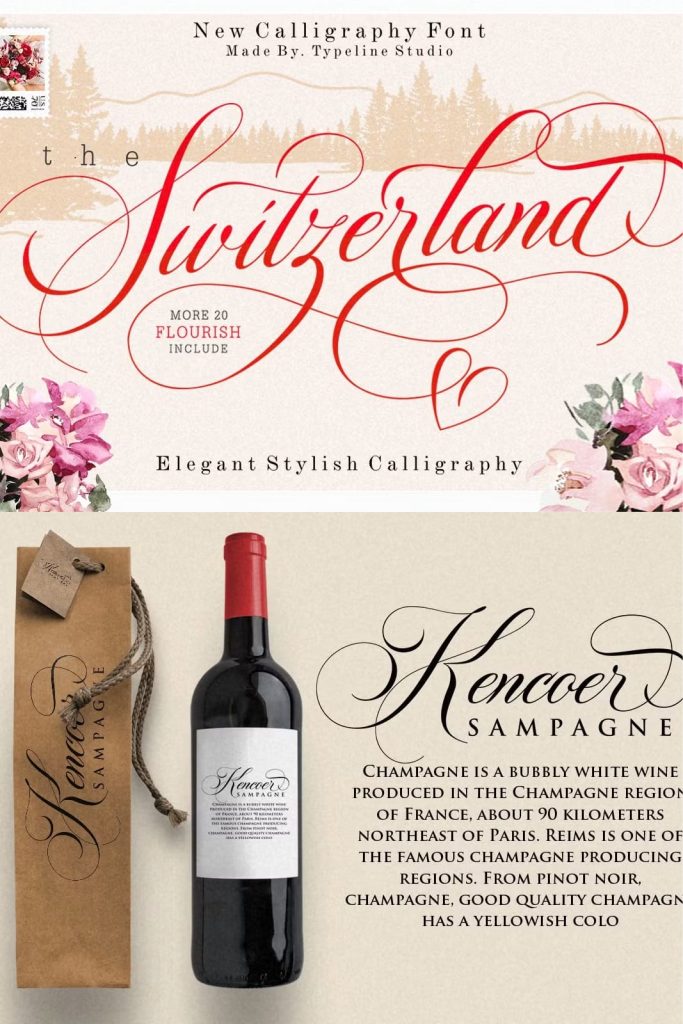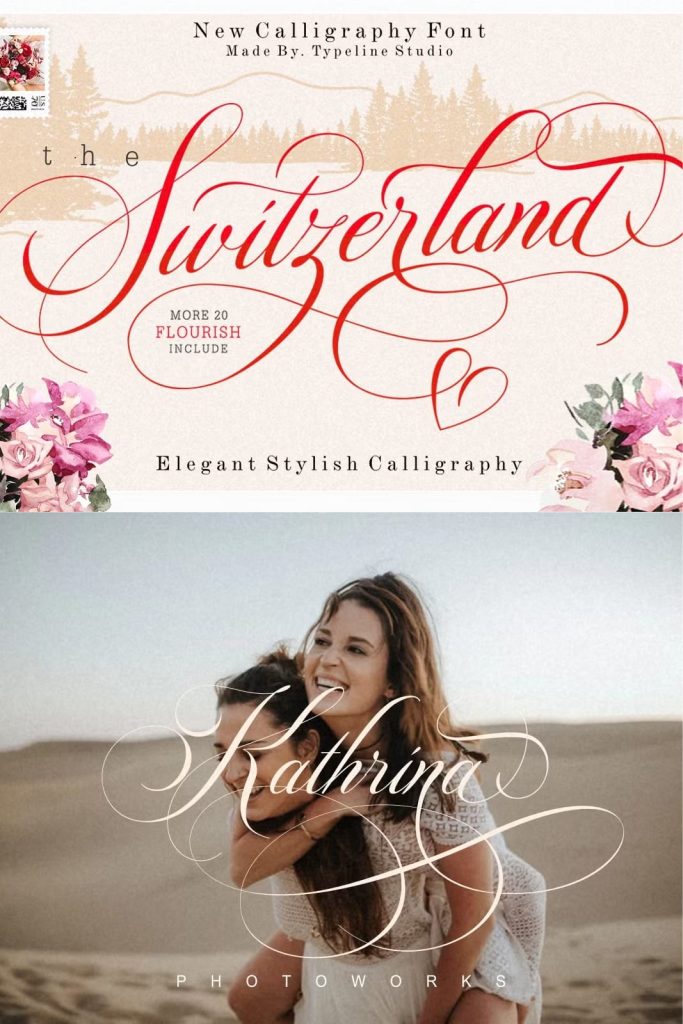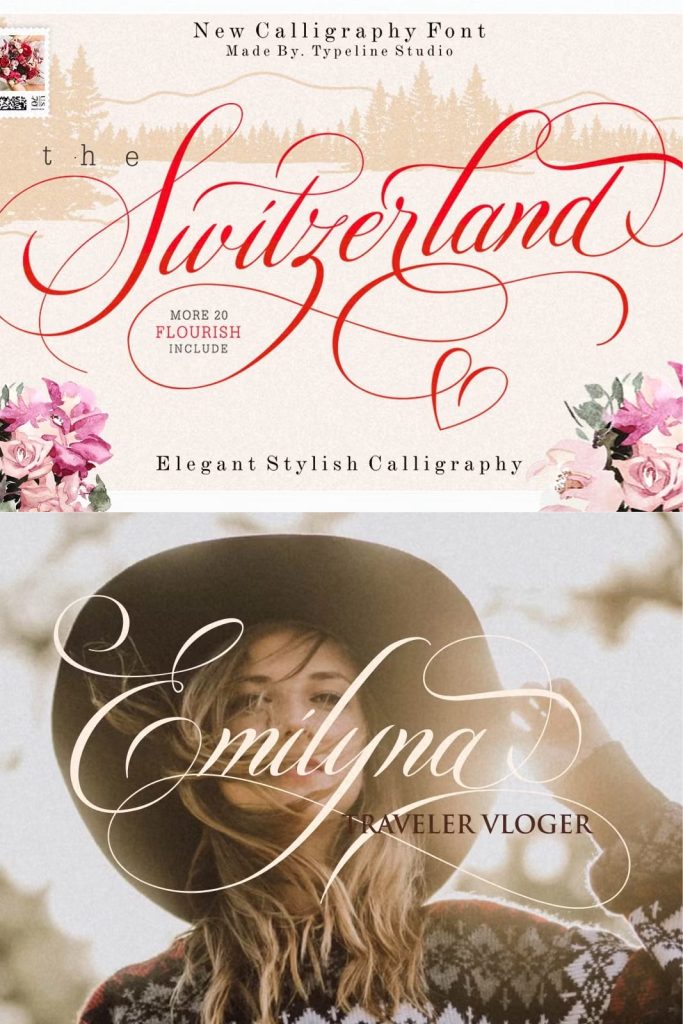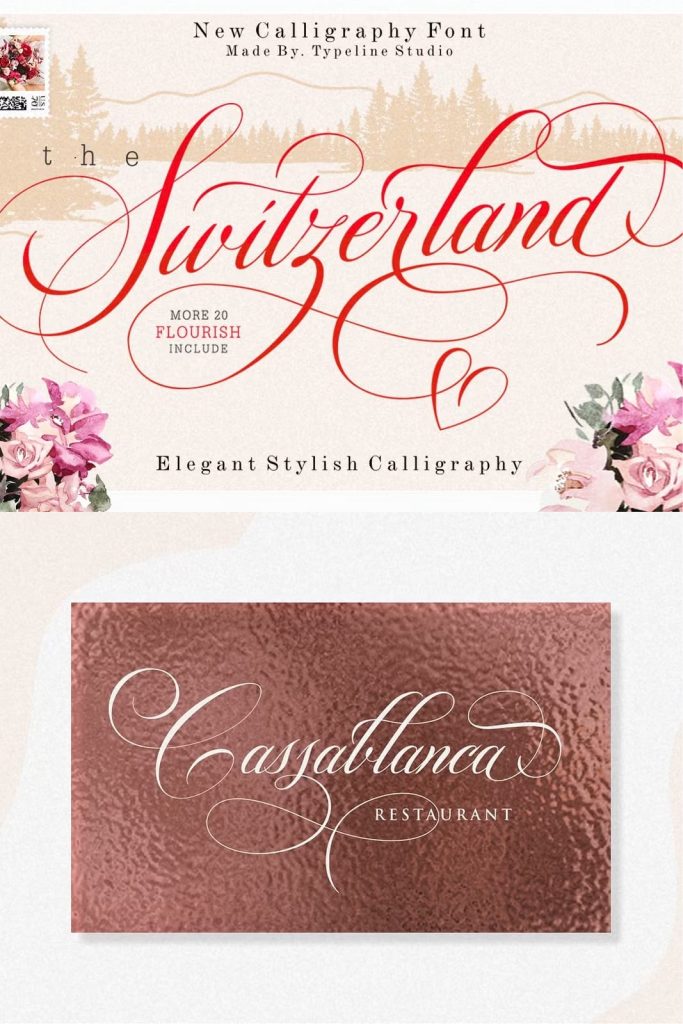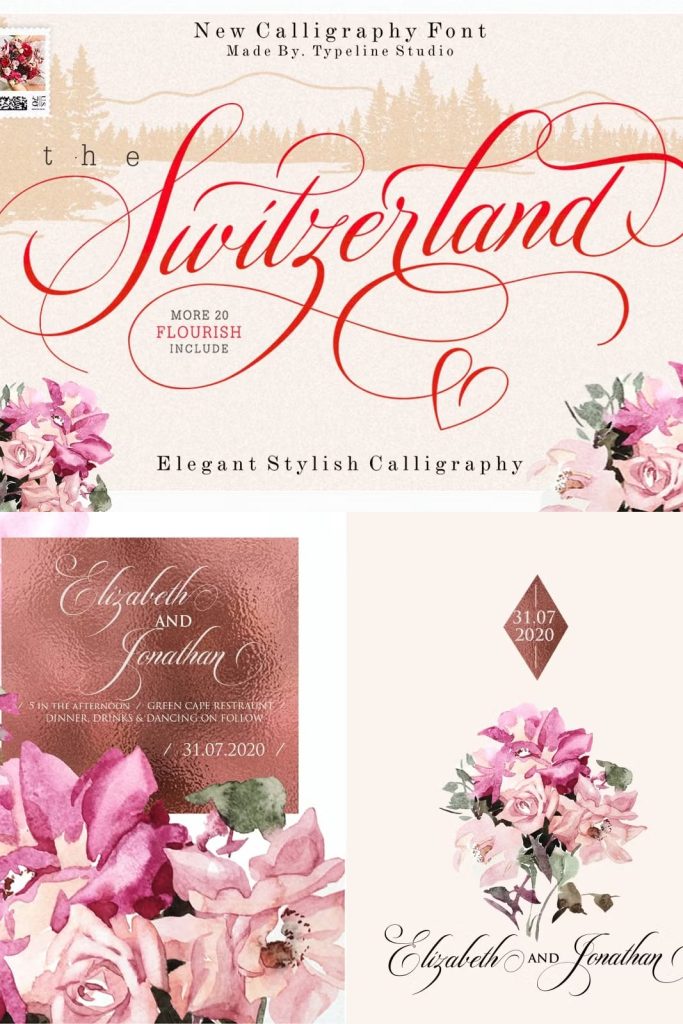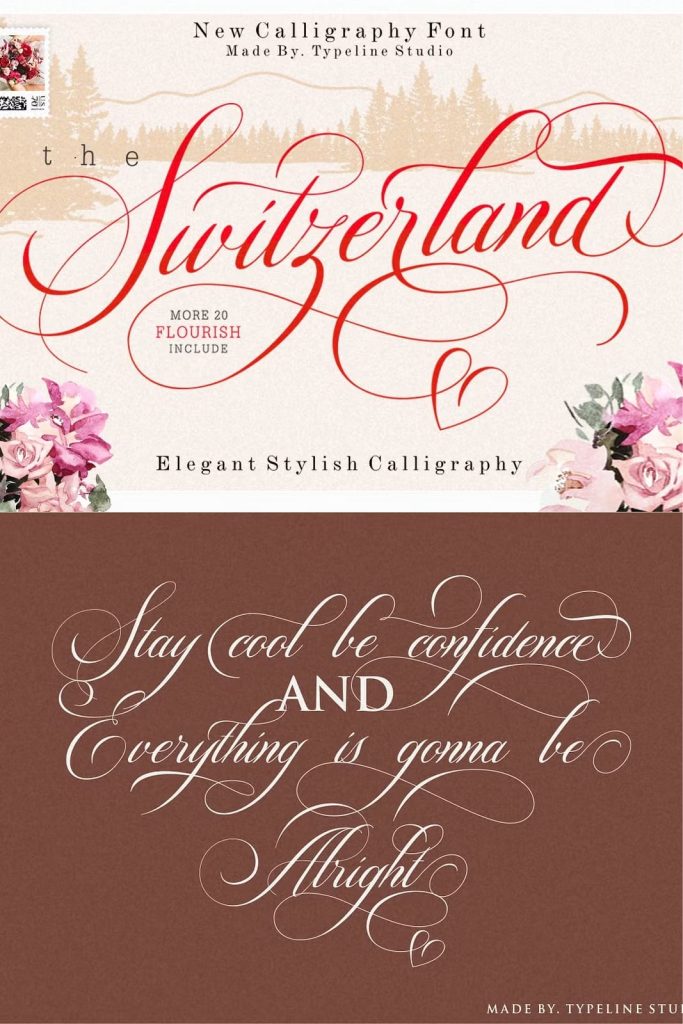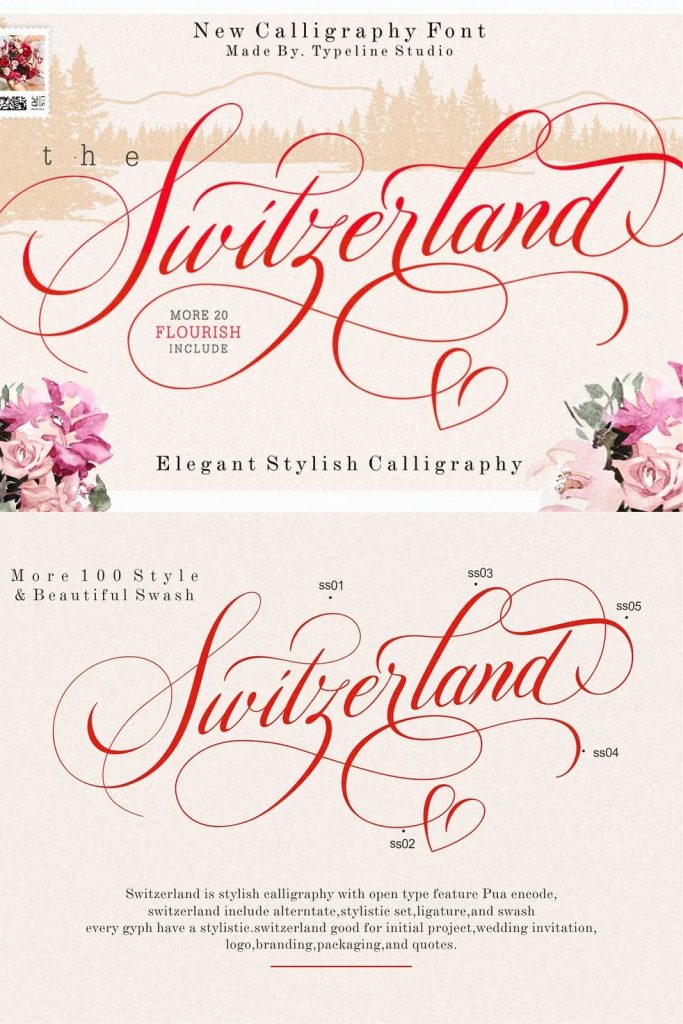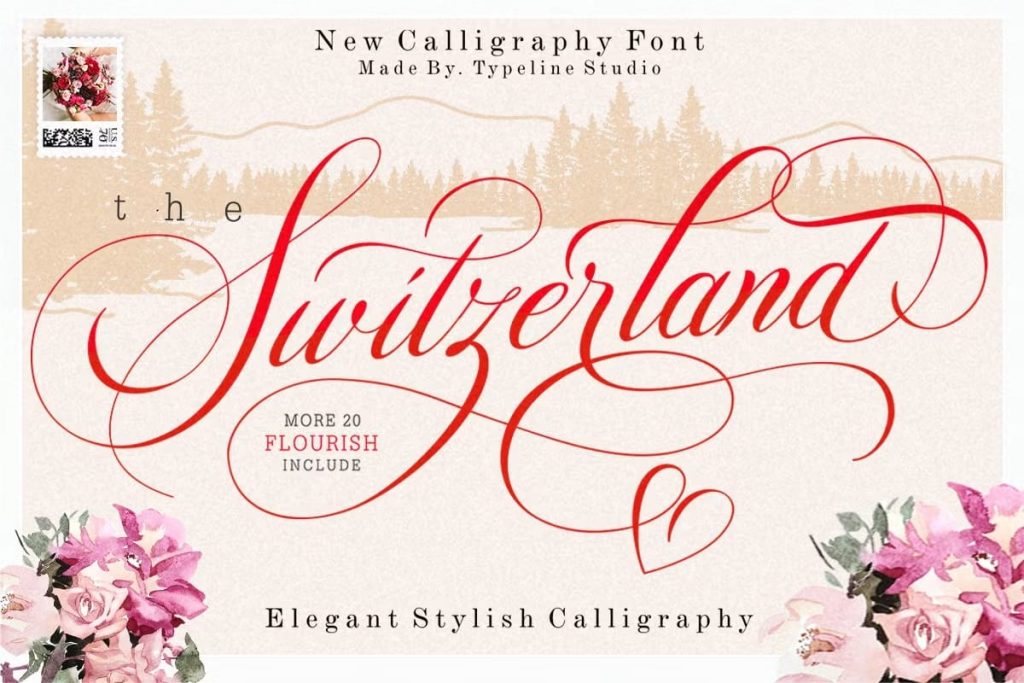
Switzerland is Stylish calligraphy font,Switzerland made by hand with copperplate pen and opentype feature with pua encode,Switzerland calligraphy include alternative,stylistic set,ligature,and swash,Every glyph lowercase have a stylistic style,Switzerland is perfect for branding, wedding invites and cards or quote.